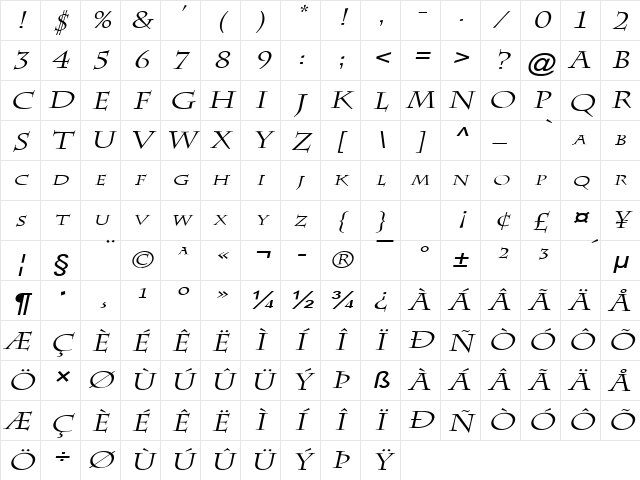
Chaz Wide Italic
Design Context for Chaz Wide
Chaz Wide is a composed and adaptable typeface that performs quietly and consistently across a wide range of design contexts. The slanted form adds forward momentum and visual energy.
Pro Tip: Use Chaz Wide for emphasis, pull quotes, and subheadings where its slanted energy can add rhythm to the layout.